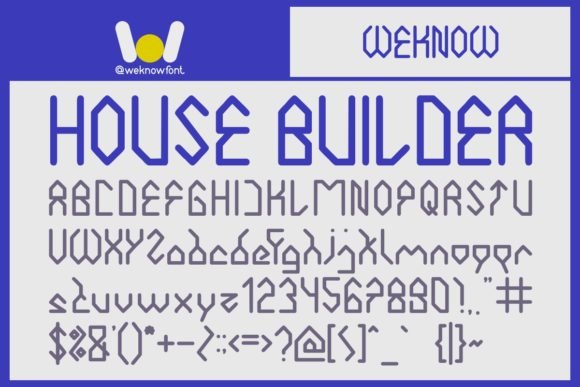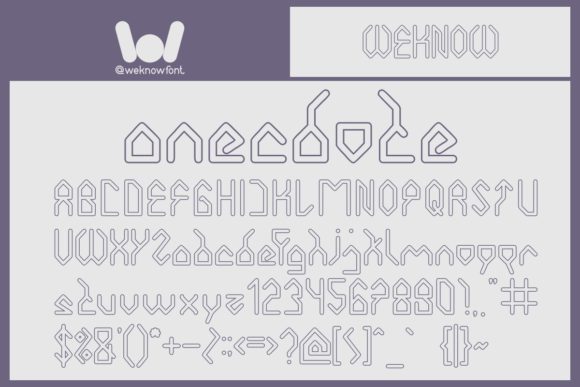
The Perfect Typography for Your Next Creative Project
Have you ever found yourself stuck on a design project, staring at a blank screen, waiting for the perfect font to bring your vision to life? It’s a feeling many designers know all too well. But what if I told you there’s a font that could take your project from bland to grand in an instant?
| 📌 Product Name | House Builder Font |
Enter the House Builder Font, a sleek and modern display font that’s perfect for any project that needs a dash of futuristic flair. Whether you’re working on a comic, movie, game, or magazine poster, this font is the ideal choice to give your design a professional and eye-catching look. As a designer, you know how valuable the right font can be in elevating your work and making it stand out from the crowd. With the House Builder Font, you’ll have the perfect tool to take your creativity to the next level.
House Builder Font Key Features
- Font Family: House Builder Font comes in 2 font styles – Regular and Bold. It also includes an Outline style for added design options.
- Character Set: The font contains a comprehensive character set, including uppercase and lowercase letters, numbers, punctuation marks, and special characters.
- Unique Characteristics: The House Builder Font features a modern, clean design with a subtle rounded edge, making it ideal for use in construction, architecture, and real estate projects.
House Builder Font Review
I’ve had the chance to work with the House Builder Font, and I must say it’s been an interesting experience. Here are my thoughts on what works well and what doesn’t.
- The House Builder Font has a clear, modern aesthetic that’s perfect for minimalist designs. It’s clean and easy to read, making it great for titles, headings, and body text.
- The font’s versatility shines through in its various weights, from light to bold. This allows designers to create a range of visual hierarchies and add depth to their designs.
- The House Builder Font may not be suitable for designs that require a more traditional or classic look. Its modern aesthetic may not be the best fit for certain projects.
- The font’s simplicity can also be a drawback, as it may not be as attention-grabbing as more ornate or decorative fonts.
The House Builder Font is a solid choice for designers who value simplicity and versatility. While it may not be the best fit for every project, it’s definitely worth considering for designs that require a clean and modern aesthetic.
Getting the Most Out of House Builder Font
Here are some tips for getting the most out of House Builder Font:
- Use the font for headings and titles to add a touch of sophistication.
- Pair the font with a clean and simple design to let the font shine.
House Builder Font is perfect for:
- Real estate and construction projects.
- Home decor and furniture design.
- Architecture and interior design.
Alternatives to House Builder Font
Open Sans is a clean and modern sans-serif font. It is highly legible and works well for body text. Use it for digital products, websites, and applications where a clean and minimalist aesthetic is desired.
Comparison to House Builder Font: Open Sans is more modern and minimalist compared to House Builder Font, which has a more traditional feel. Open Sans is also more versatile and works well in a variety of contexts.
Lato is a sans-serif font that is highly legible and works well for body text. It has a friendly and approachable feel, making it suitable for websites, applications, and digital products that require a warm and inviting tone.
Comparison to House Builder Font: Lato has a more modern and sophisticated feel compared to House Builder Font, which has a more traditional feel. Lato is also more versatile and works well in a variety of contexts.
What font sizes and styles are available in House Builder Font?
House Builder Font includes a range of font sizes and styles, including bold, italic, and regular weights. The font supports Latin, Cyrillic, and Greek alphabets, and includes a wide range of punctuation and special characters. For detailed information on font sizes and styles, please refer to the included font documentation.